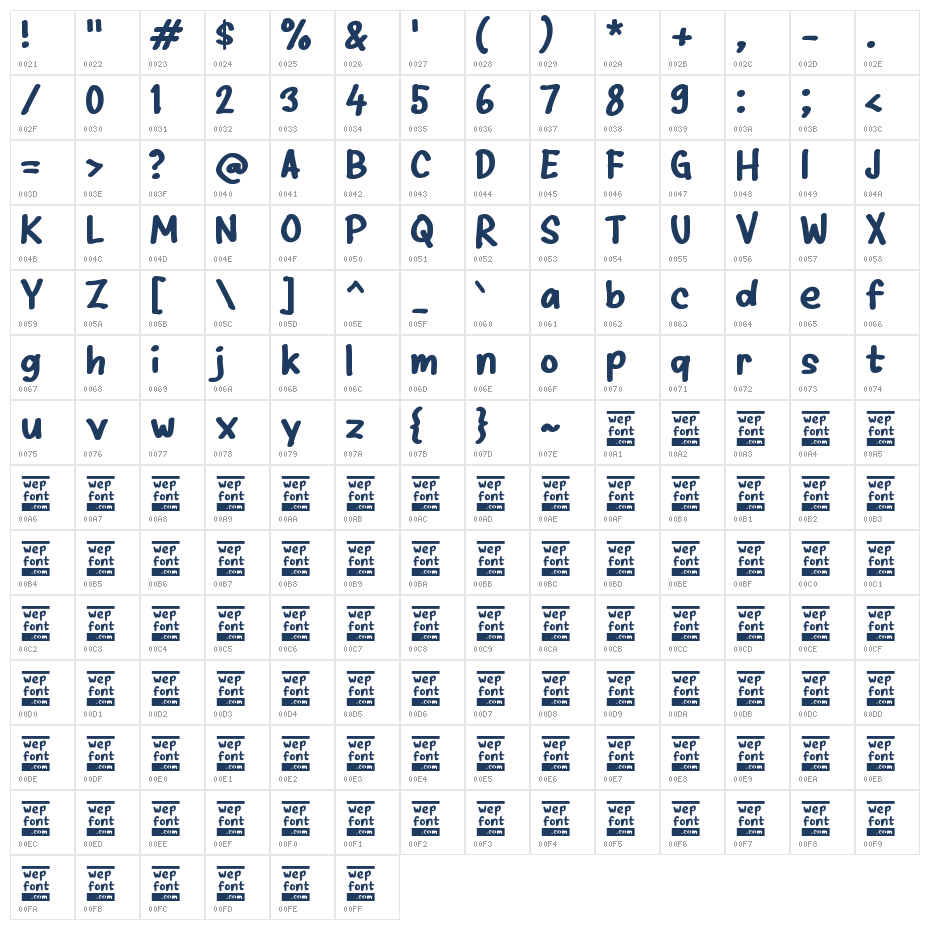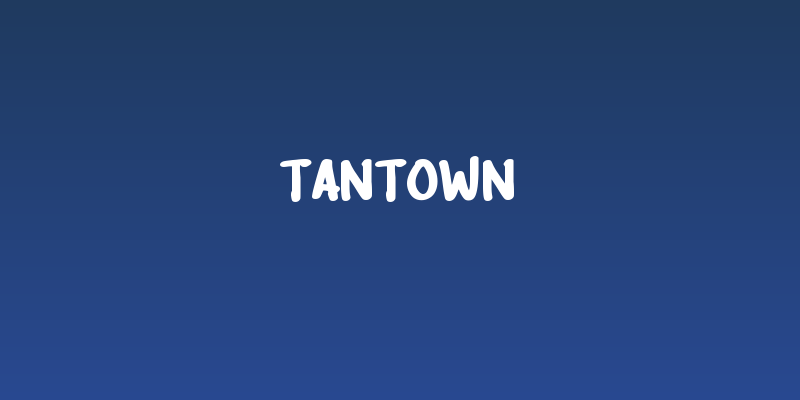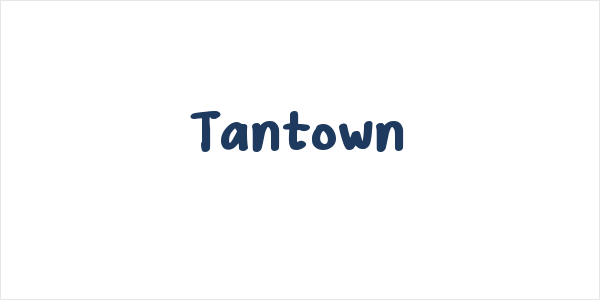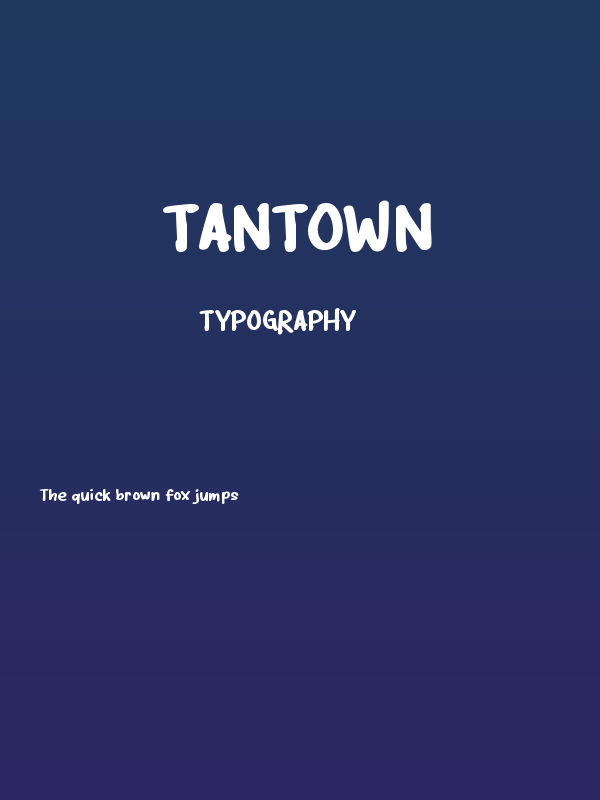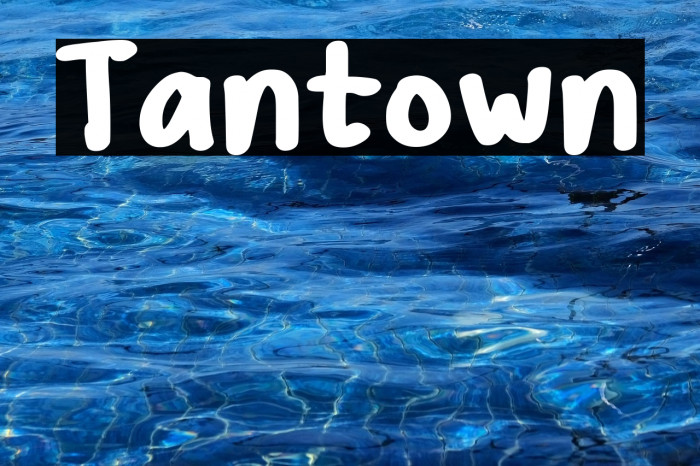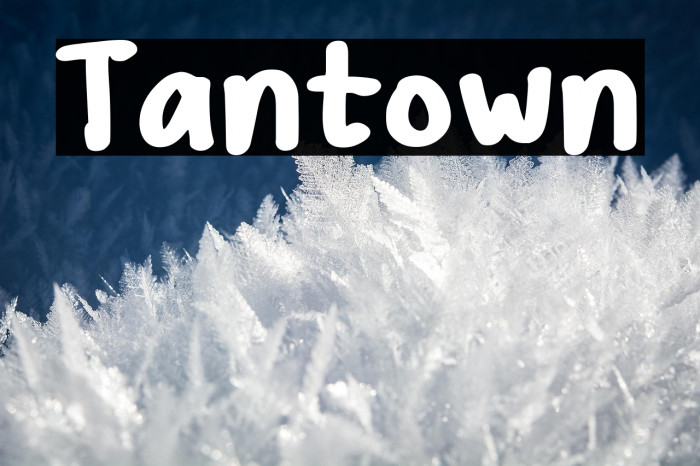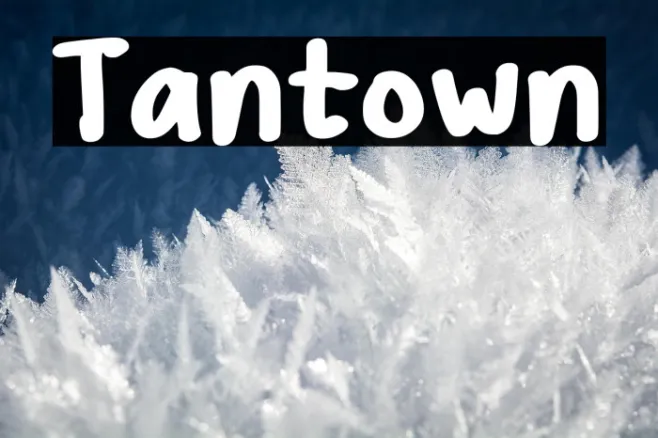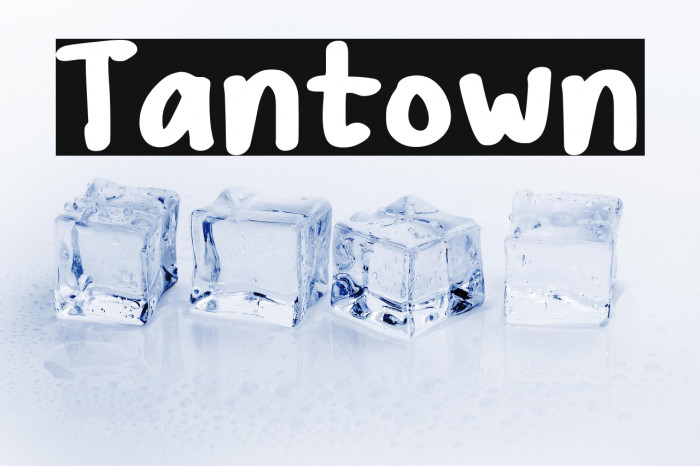
Tantown Font
Tantown Description
A playful, rounded, handwritten style font with a casual and friendly appearance.
| Overall Style | Casual, Playful, Friendly |